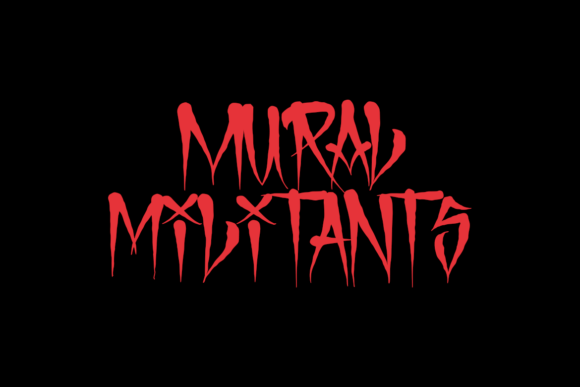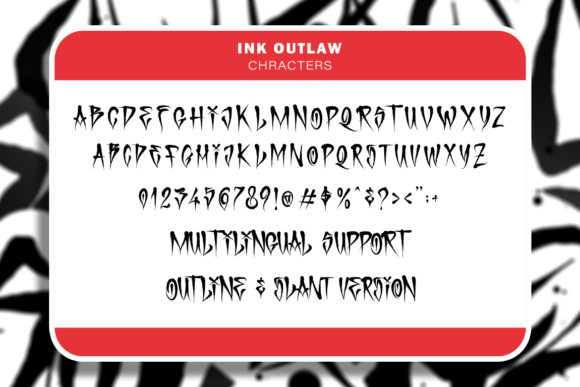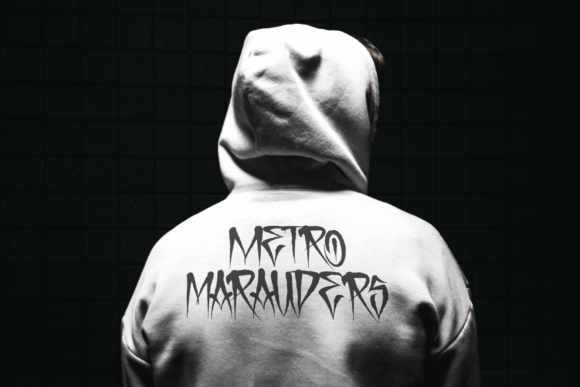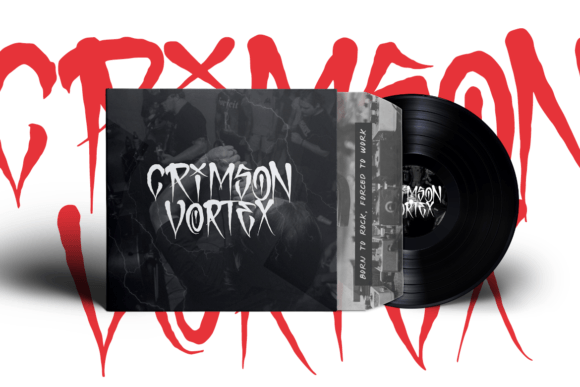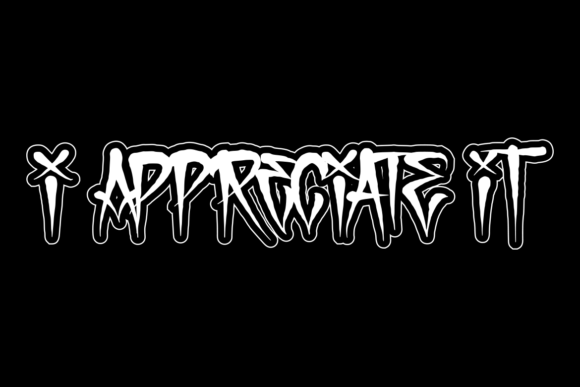
Introduction to Ink Outlaw Font
Ink Outlaw is not just a font; it’s a rebellious statement in every stroke.
Inspired by the raw energy and urban artistry of graffiti and vandalism, this font unleashes a torrent of creativity onto your canvas Each letter is a work of defiant art, meticulously designed to capture the edgy spirit of street culture.
Key Features of Ink Outlaw Font